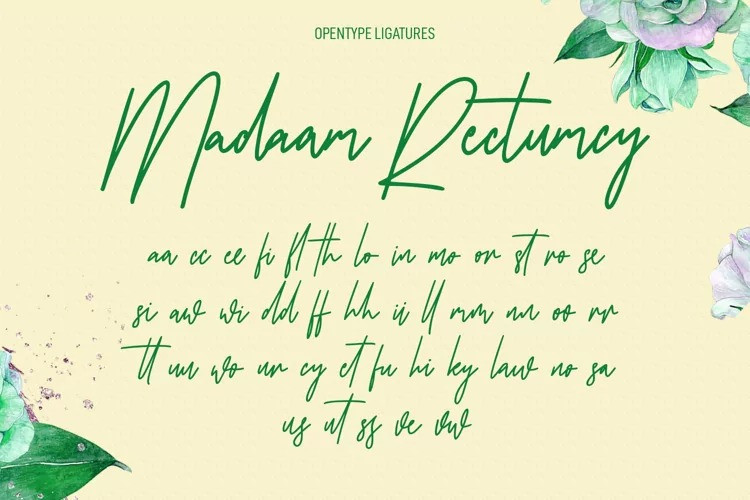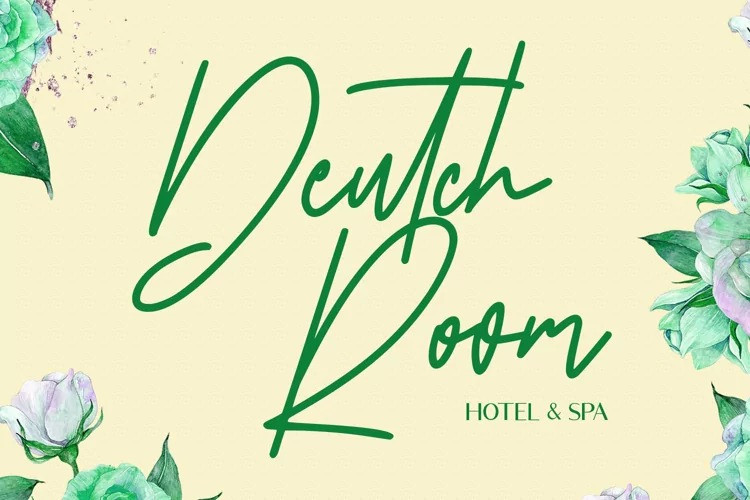
Antrophys Font
Antrophys Font is a casual signature script font. With regular mono-line stroke, fun character with a bit of ligatures. To give you an extra creative work. Antrophys font support multilingual more than 100+ language. This font is good for logo design, Social media, Movie Titles, Books Titles, a short text even a long text letter and good for your secondary text font with sans or serif. Make a stunning work with Antrophys font.